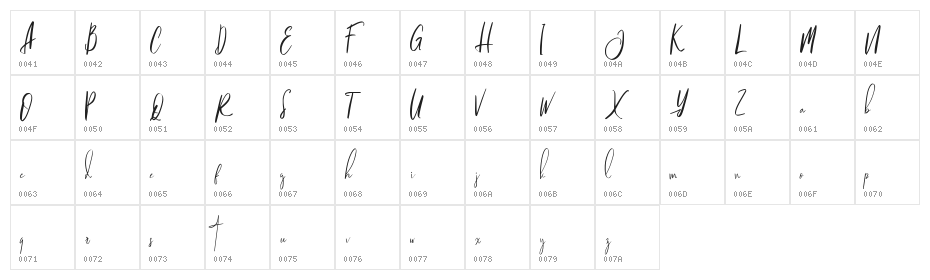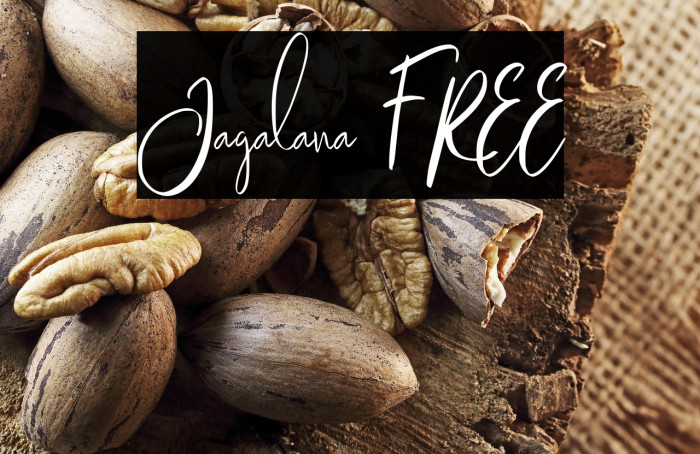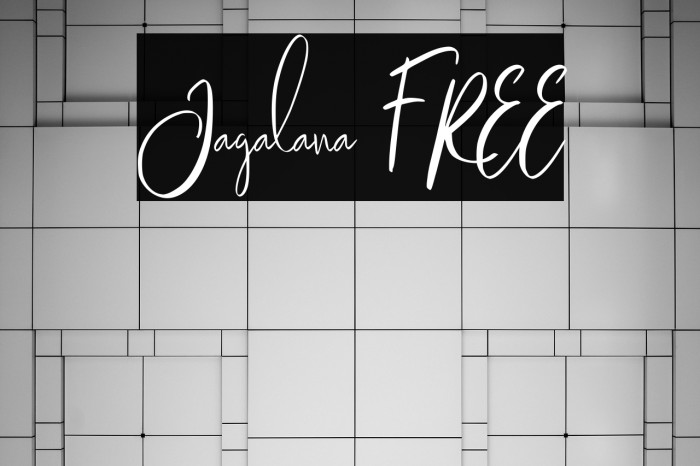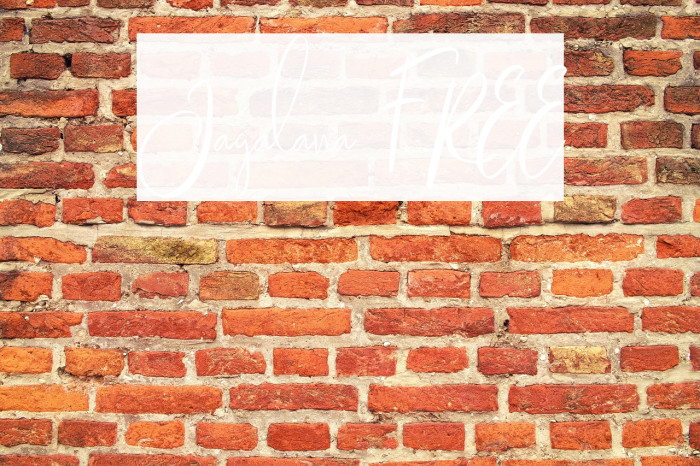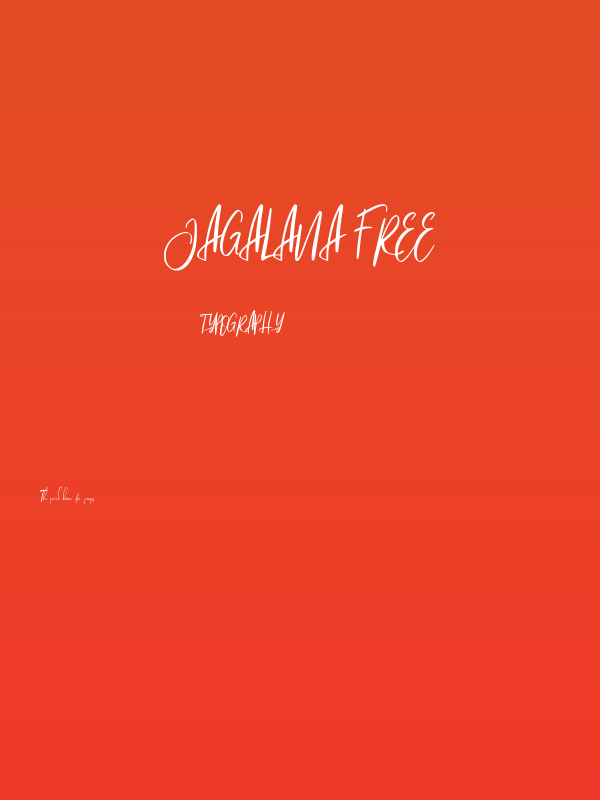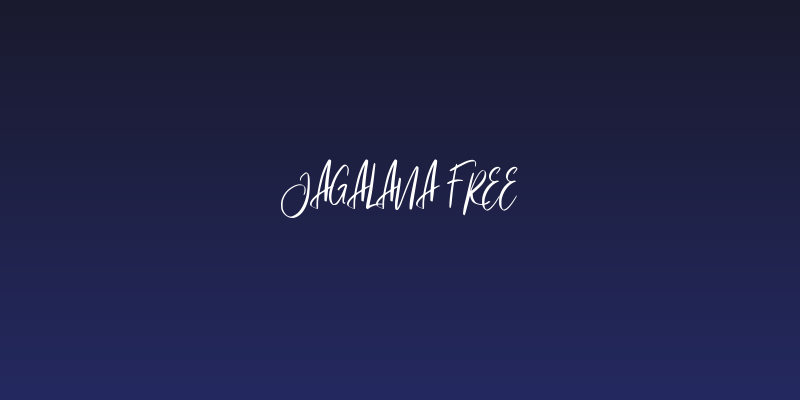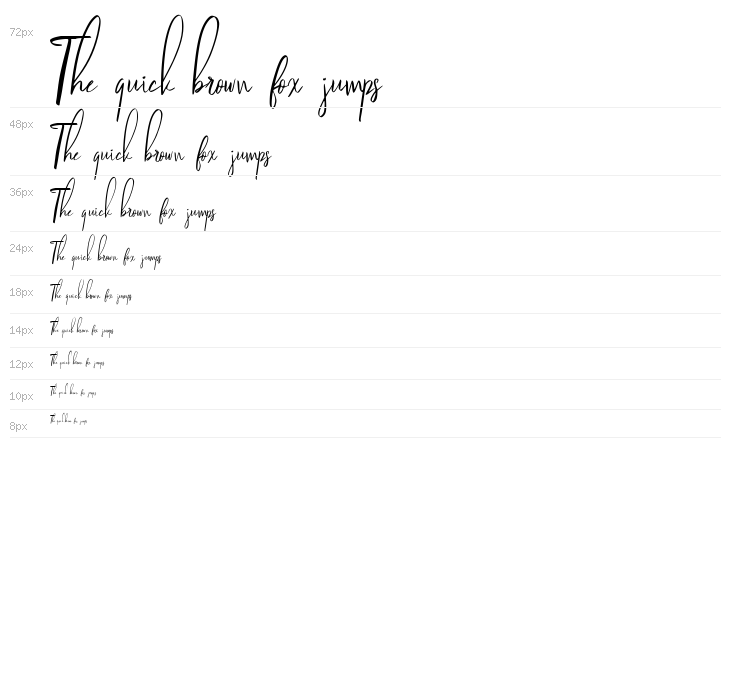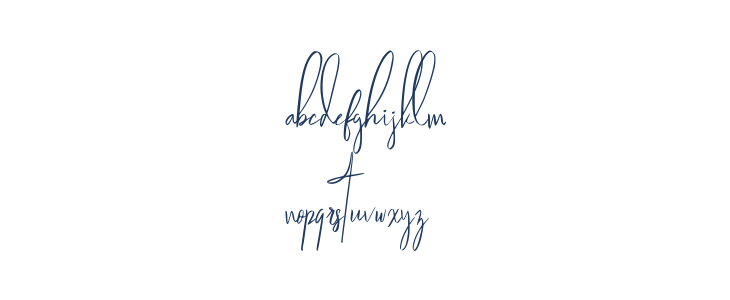
Jagalana FREE Font
Jagalana FREE Description
This font features a dynamic and expressive script style, characterized by its flowing, cursive letterforms and elegant swashes. The uppercase letters are bold and dramatic, with a distinctive flair that adds a sense of movement and energy. The lowercase letters maintain a consistent rhythm, complementing the uppercase with their smooth, connected strokes. The font includes a full set of numerals and a selection of special characters, making it versatile for various design needs. Its artistic and handwritten appearance makes it ideal for creative projects that require a personal touch.
| Use Case | Logos, Invitations, Headlines |
| Proposed Projects | Ideal for wedding invitations, greeting cards, logos, and branding projects that require a personal and artistic touch. |